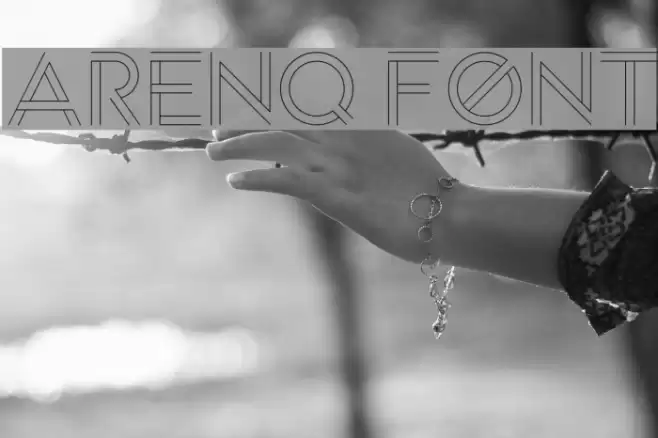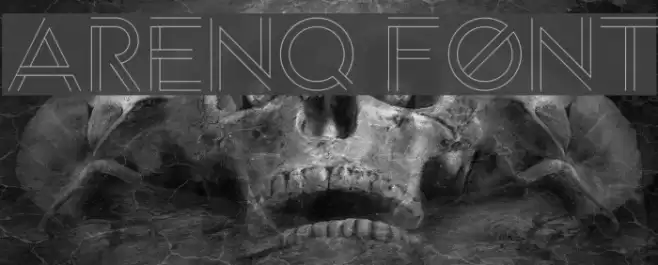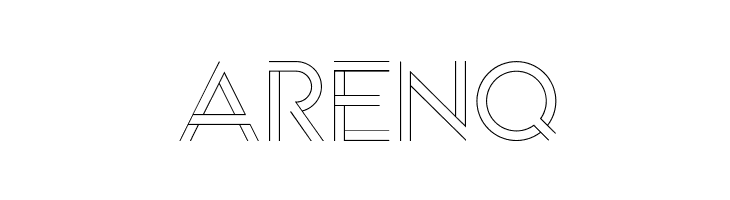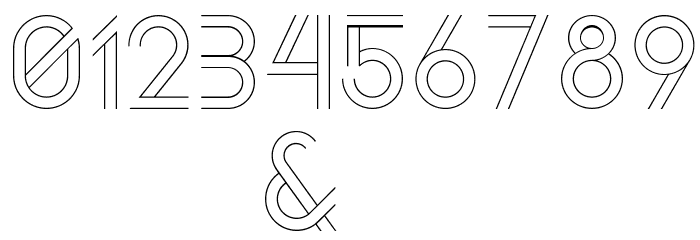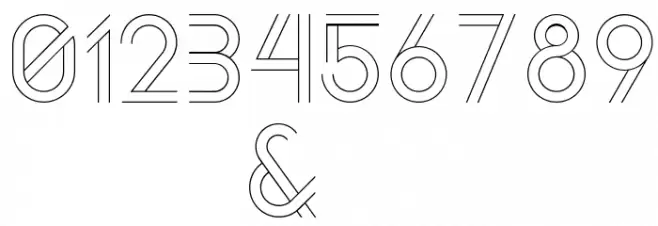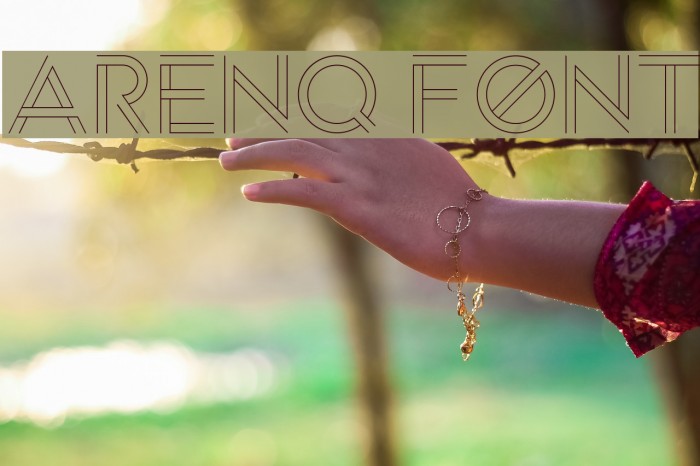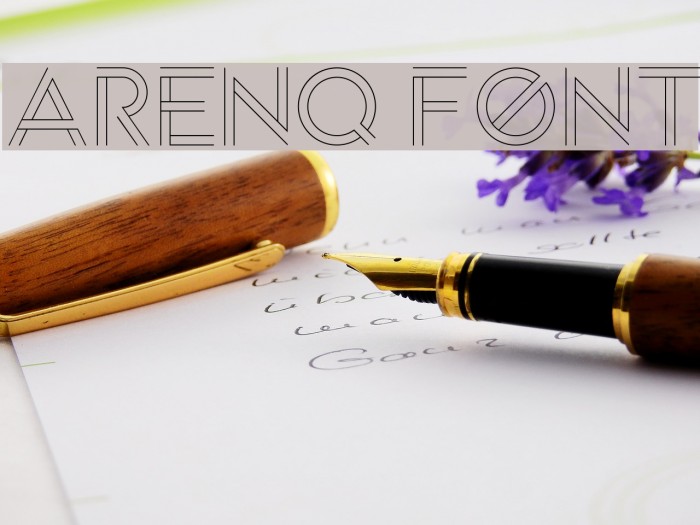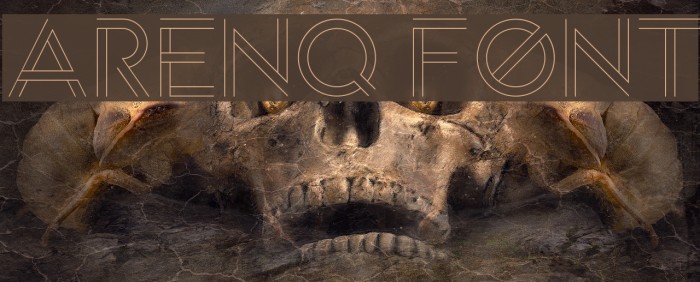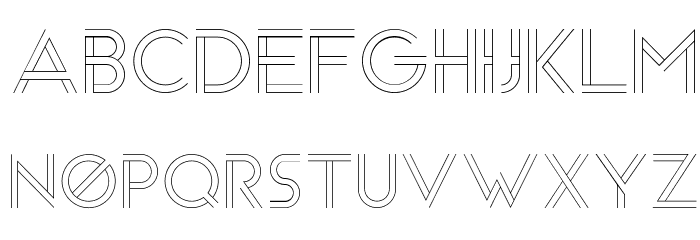
Arenq Font
Arenq Description
This font features a modern, geometric design with clean, straight lines and a minimalist aesthetic. Each character is constructed using a series of parallel lines, creating a sense of depth and dimension. The uppercase letters are bold and striking, while the lowercase letters maintain a consistent style, offering a cohesive look. The numerals are uniquely styled, with a futuristic appearance that complements the overall design. The ampersand is particularly distinctive, showcasing the font's creative approach to traditional forms. This font is ideal for projects that require a contemporary and innovative touch.
A modern, geometric font with parallel lines and a minimalist aesthetic from Uncategorized fonts.